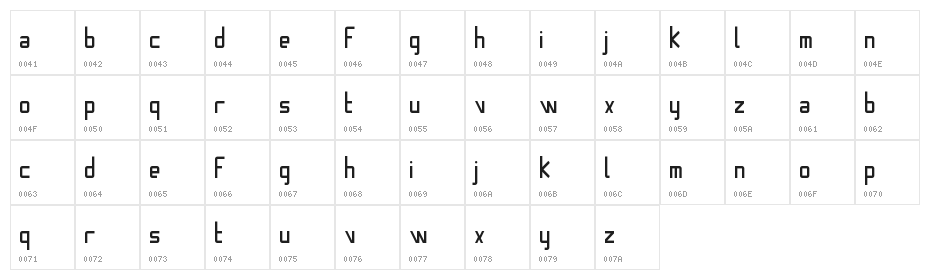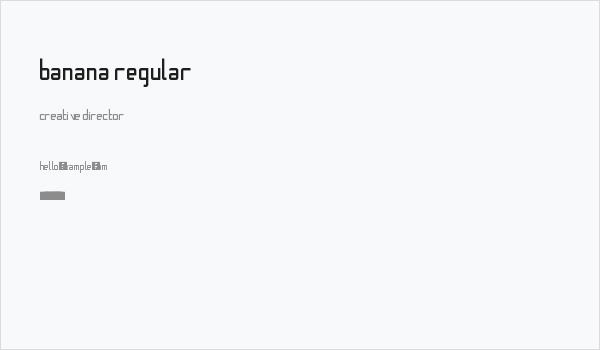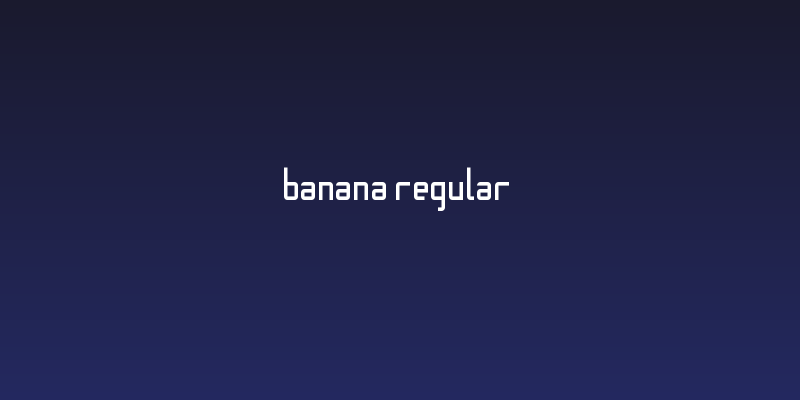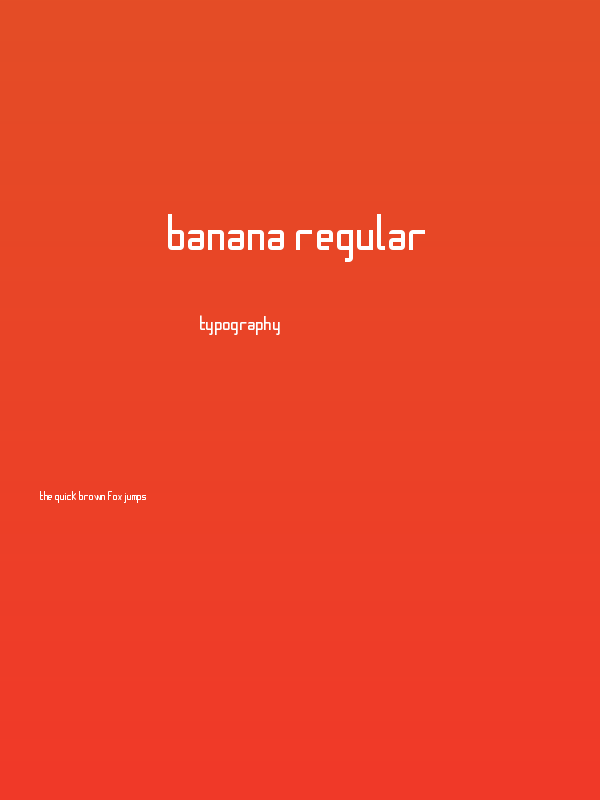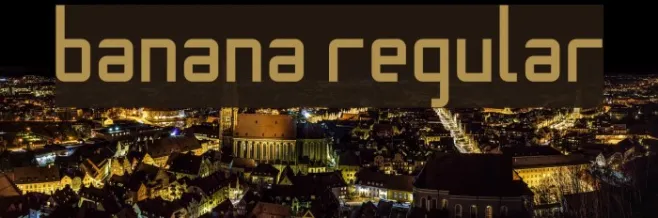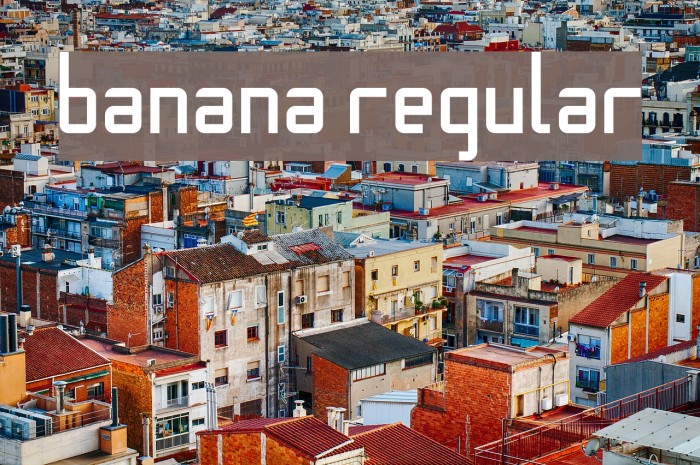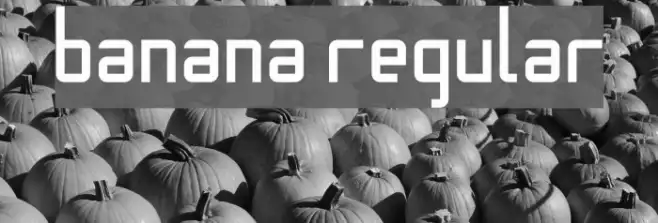
Banana Regular Font
Banana Regular Description
This font features a geometric and modern design with clean, straight lines and a uniform stroke width. The characters are well-defined with a slightly condensed appearance, giving it a compact and structured look. The lowercase letters maintain a consistent height, while the uppercase letters are bold and prominent. The font's simplicity and clarity make it highly legible, suitable for various design applications. Its modern aesthetic is enhanced by the absence of serifs, providing a sleek and contemporary feel. The spacing between characters is balanced, ensuring readability without appearing crowded.
| Categories | Thick |
| Width | Condensed |
| Use Case | Headlines, Logos, Digital interfaces |
| Proposed Projects | Ideal for tech branding, modern web design, minimalist posters, and digital interfaces. |